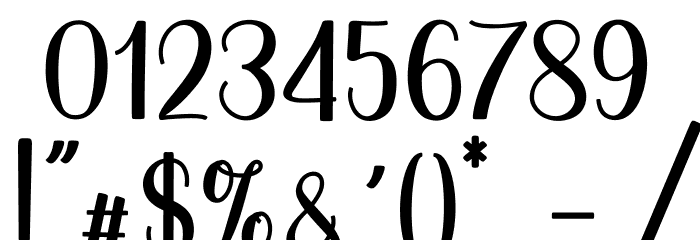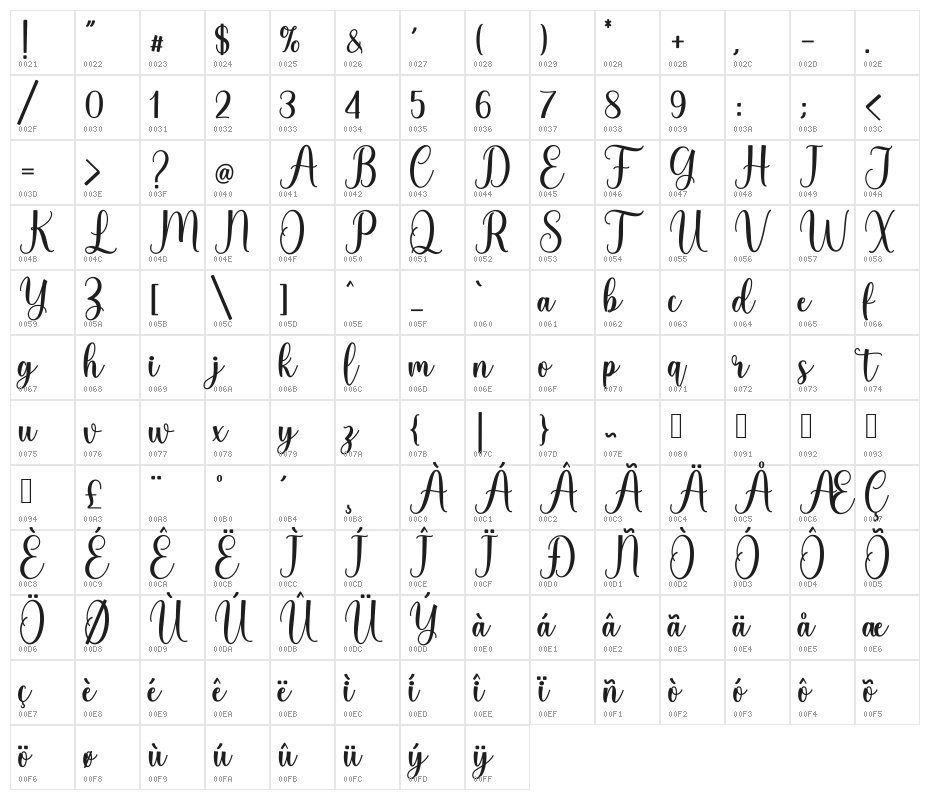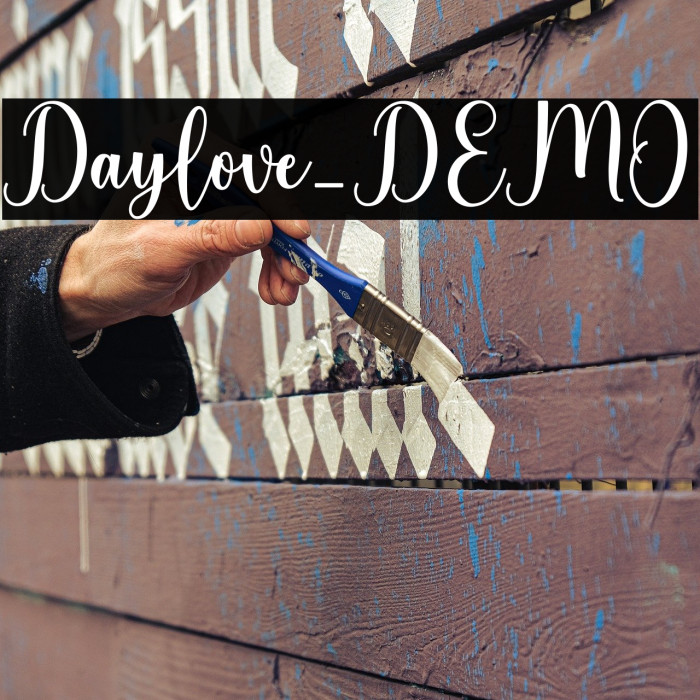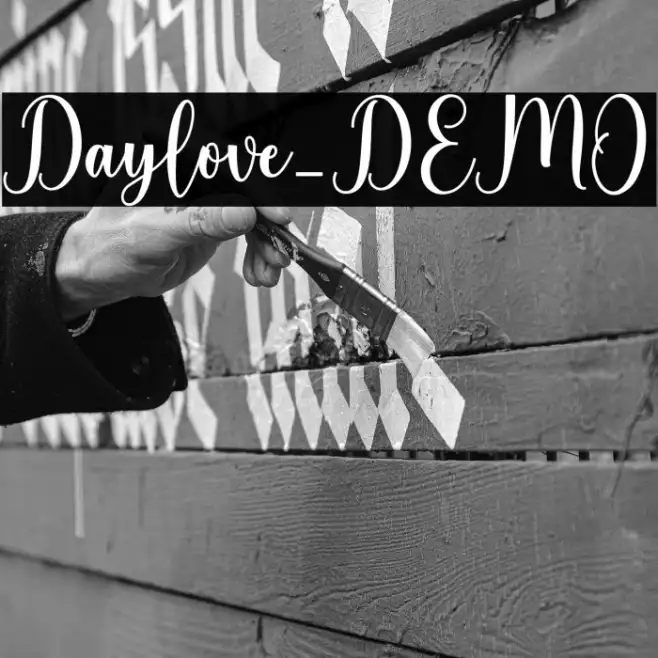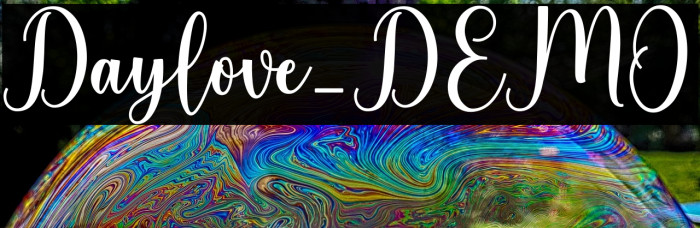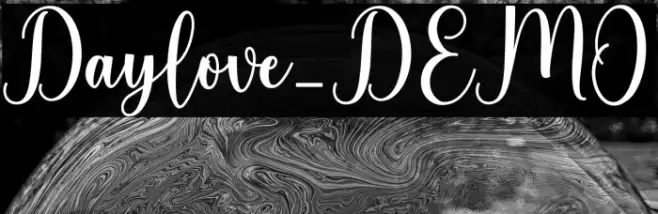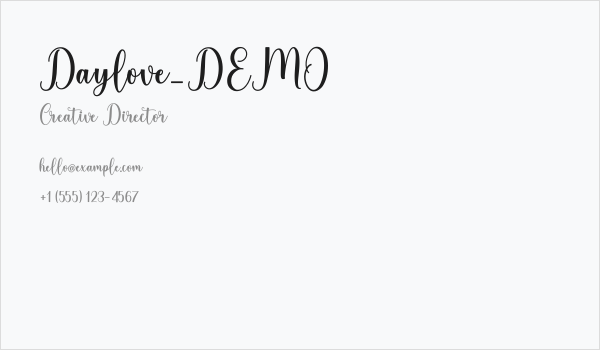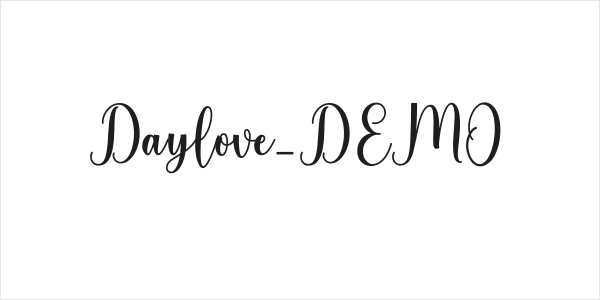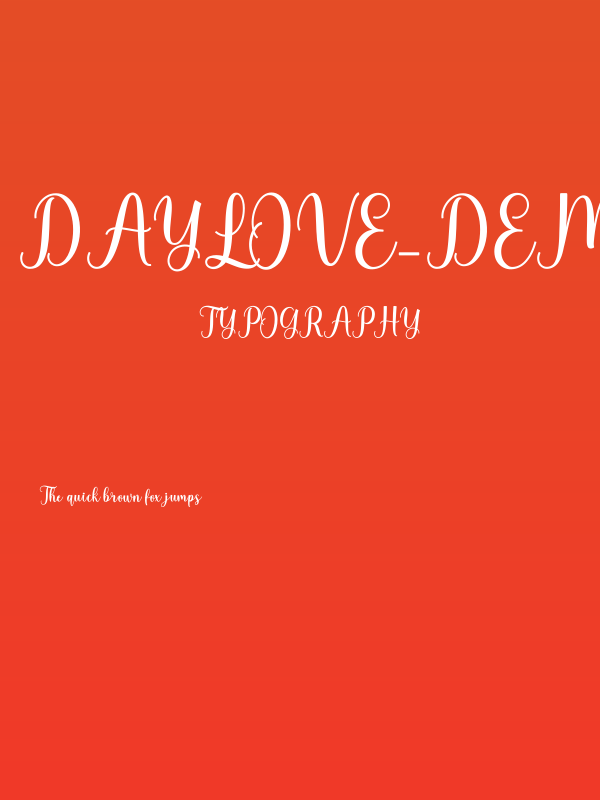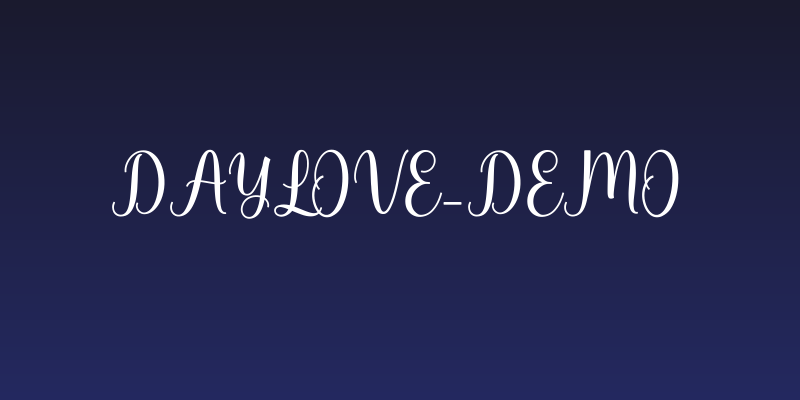
Daylove_DEMO Font
Daylove_DEMO Description
This font features a playful and elegant script style with a flowing, cursive design. The uppercase letters are characterized by their graceful loops and swirls, giving a sense of movement and fluidity. The lowercase letters maintain a consistent style, with smooth connections between each character, enhancing readability while retaining a decorative flair. The numerals are bold and slightly condensed, complementing the overall aesthetic. Special characters are designed with the same attention to detail, ensuring they blend seamlessly with the rest of the typeface. This font exudes a sense of charm and sophistication, making it suitable for a variety of creative applications.